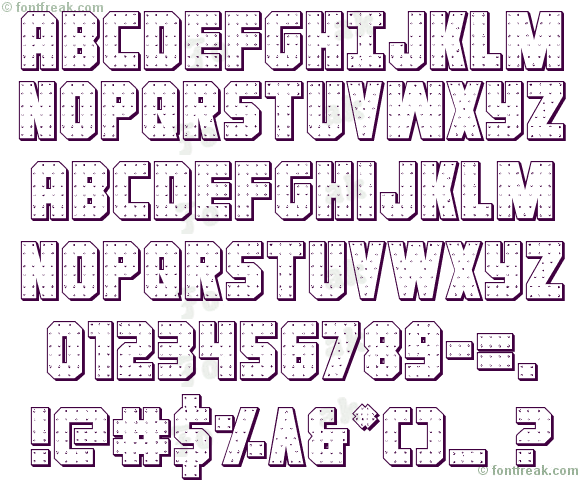
Iron Forge 3D Regular
Iron Forge 3D Regular is a striking display font designed by Daniel Zadorozny, perfectly categorized as a decorative typeface. This font stands out with its unique three-dimensional design, evoking the strength and robustness associated with ironwork. Its bold stroke weight and irregular, plate-like appearance create a sense of depth and character, making it an ideal choice for projects that require a strong visual impact.
The font's decorative elements include a distinctive outline that enhances its 3D effect, giving it a playful yet industrial feel. The spacing is balanced, ensuring legibility while maintaining a compact look that draws attention. This combination of features makes Iron Forge 3D Regular particularly suitable for a variety of creative applications. It excels in contexts like movie posters, where bold titles and striking designs are essential. Additionally, it can be effectively used for product packaging, especially in industries related to tools or machinery, where an industrial vibe is desired. Restaurant menus and promotional materials can also benefit from its unique style, capturing the attention of diners and potential customers alike.
In summary, the Iron Forge 3D Regular font free download is an excellent addition to any designer's toolkit. Its bold, industrial aesthetic, coupled with its playful 3D style, makes it a compelling choice for a range of creative endeavors. Whether for digital or print, this font promises to leave a lasting impression.